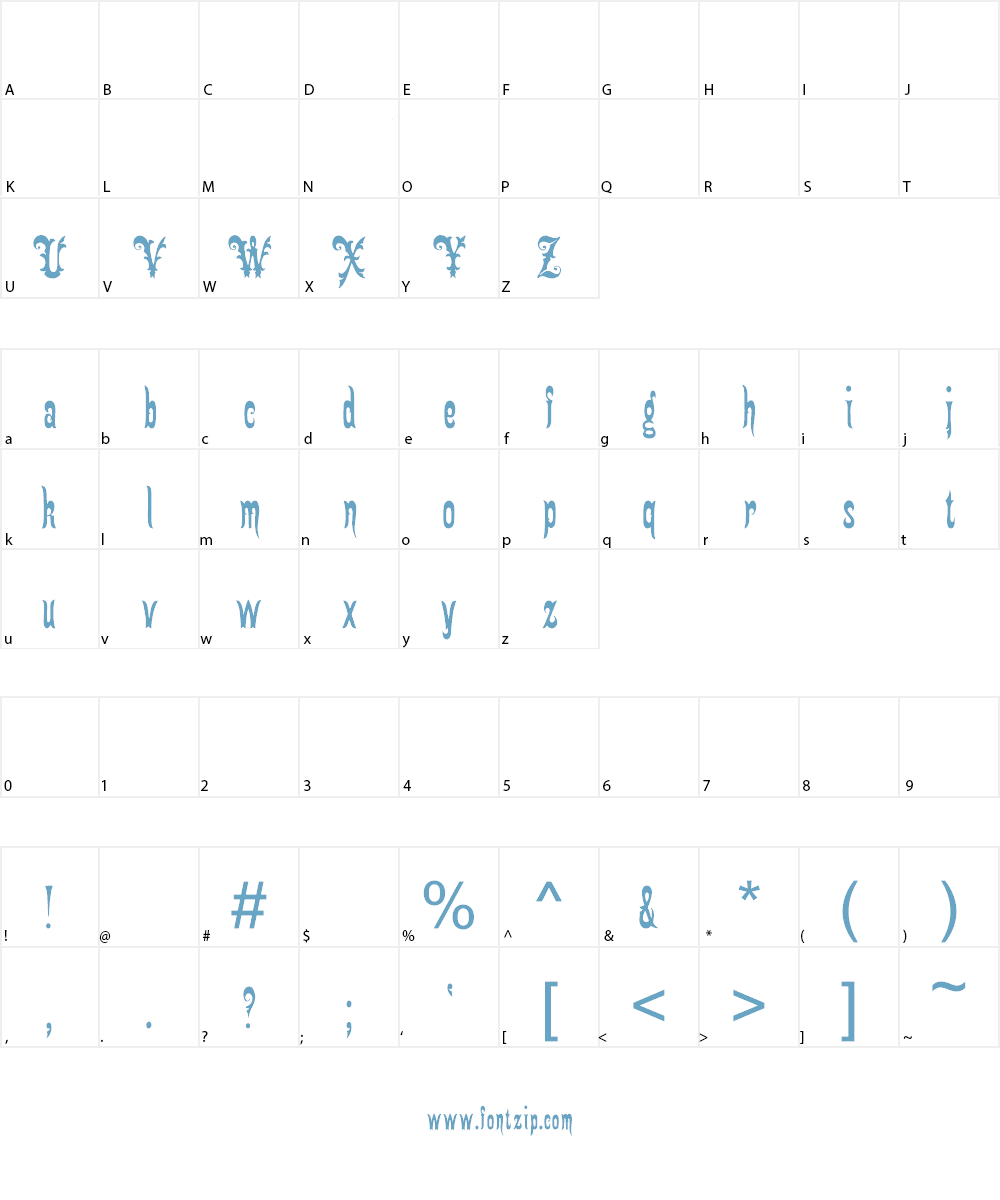
Gingerbread is from Victorian Display Alphabets: 100 Complete Fonts by Dan X. Solo and also on page 14 of The Solotype Catalog of 4,147 Display Typefaces.
According to Type Historian, Gingerbread was designed by Julius Herriet for the Bruce Foundry of New York in 1878.